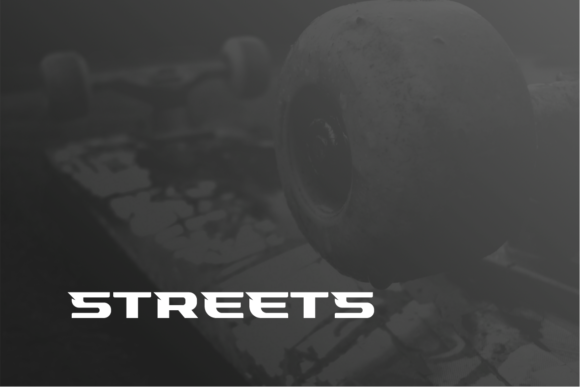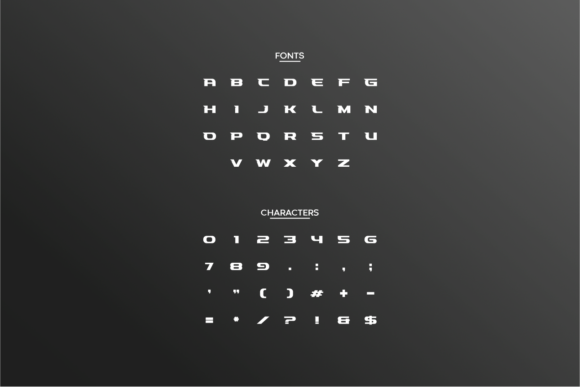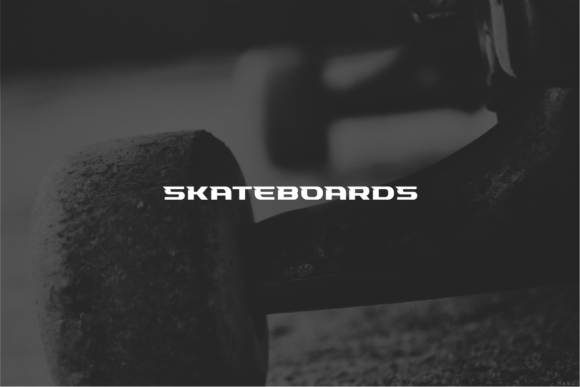
Banhir Font: The Ultimate Bold Display Font for Designers
Are you a designer looking for a font that can add a touch of boldness and thickness to your designs? Look no further than the Banhir Font. This stunning display font is perfect for designers who want to make a statement with their typography. In this article, we’ll explore the features and benefits of Banhir Font, and how it can elevate your designs to the next level.
What is Banhir Font?
Banhir Font is a thick lettered and bold display font that is designed to make a statement. Its bold and chunky letters are perfect for adding a touch of drama and emphasis to your designs. Whether you’re working on a sports-related project, a poster, or a logo, Banhir Font is the perfect choice. Its unique and eye-catching design makes it stand out from other fonts, and its versatility ensures that it can be used in a variety of contexts.
Key Features of Banhir Font
- Bold and Thick Letters: Banhir Font features bold and thick letters that are perfect for making a statement.
- Sports-Inspired Design: Banhir Font was created with sports designers in mind, making it perfect for sports-related projects.
- Endless Variations: With Banhir Font, you can experiment with endless variations to create a unique look that suits your design.
Who is Banhir Font for?
Banhir Font is perfect for designers who want to add a touch of boldness and thickness to their designs. It’s ideal for:
- Sports Designers: Banhir Font was created with sports designers in mind, making it perfect for sports-related projects such as team logos, jerseys, and sports equipment.
- Graphic Designers: Banhir Font is perfect for graphic designers who want to add a touch of boldness and emphasis to their designs.
- Advertising Agencies: Banhir Font is ideal for advertising agencies who want to create eye-catching and memorable ads.
- Crafters and Makers: Banhir Font is also perfect for crafters and makers who want to add a personal touch to their DIY projects.
Benefits of Using Banhir Font
There are many benefits to using Banhir Font in your designs. Here are a few:
- Adds Emphasis: Banhir Font adds emphasis and boldness to your designs, making them stand out from the crowd.
- Creates a Statement: Banhir Font creates a statement and makes a bold declaration, perfect for designers who want to make an impact.
- Versatile: Banhir Font is versatile and can be used in a variety of contexts, from sports-related projects to advertising and more.
- Easily Readable: Despite its boldness, Banhir Font is easily readable, making it perfect for designs that require a clear and concise message.
In conclusion, Banhir Font is a stunning bold display font that is perfect for designers who want to add a touch of boldness and thickness to their designs. Its sports-inspired design, endless variations, and ease of use make it a must-have font for designers. Whether you’re a sports designer, graphic designer, or crafter, Banhir Font is the perfect choice for your next project. So why wait? Download Banhir Font today and start creating stunning designs that make a statement!